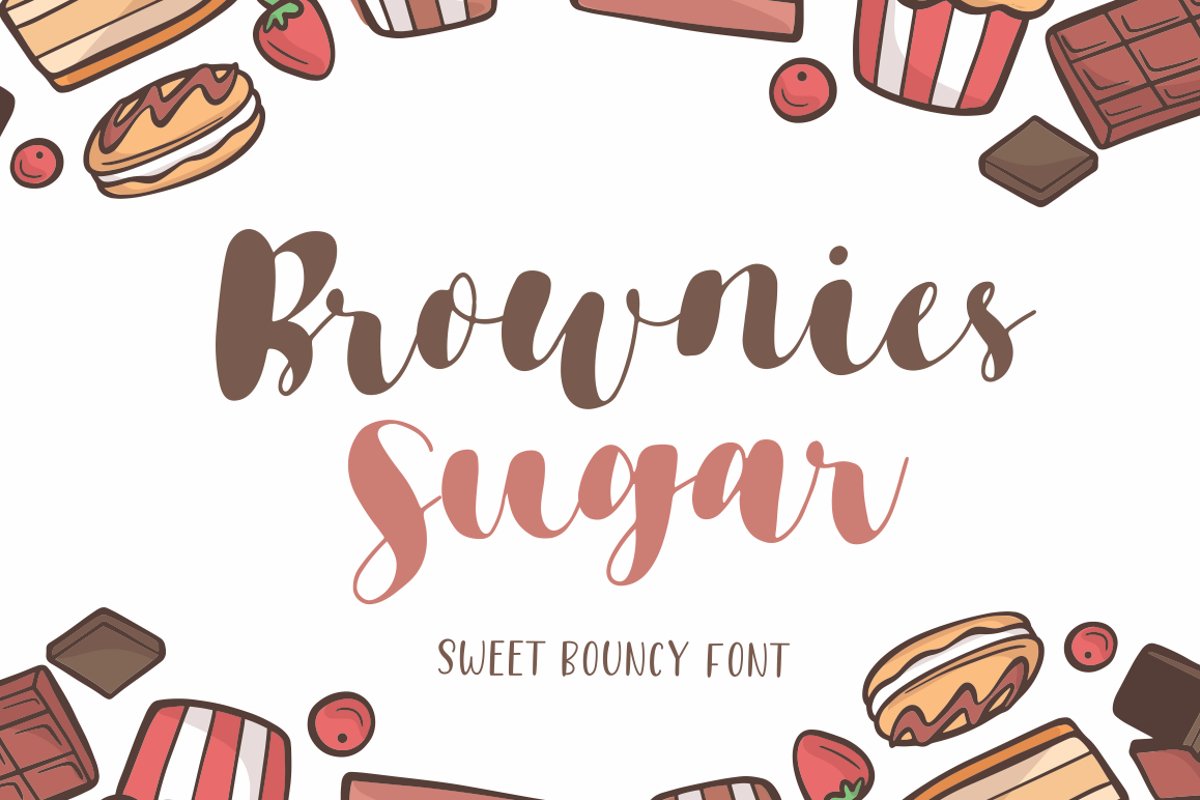
Brownies Sugar - Sweet Bouncy Font
Brownies Sugar - Sweet Bouncy Font, this font Is perfect for logo, invitation, stationery, wedding designs, social media posts, advertisements, product packaging, product designs, label, photography, watermark, special events or anything.
Brownie Sugar comes with full set of uppercase and lowercase letters, multilingual symbols, numerals, punctuation.